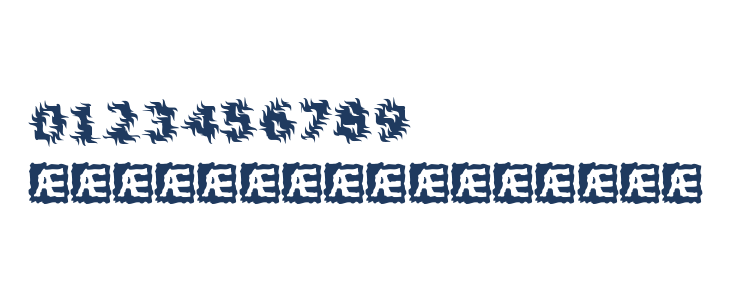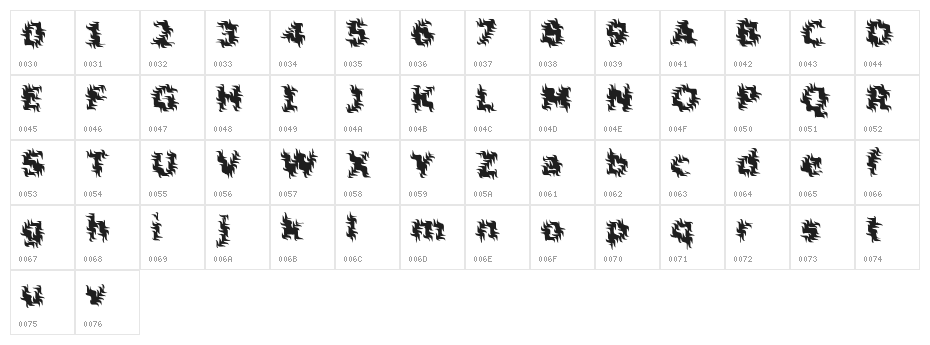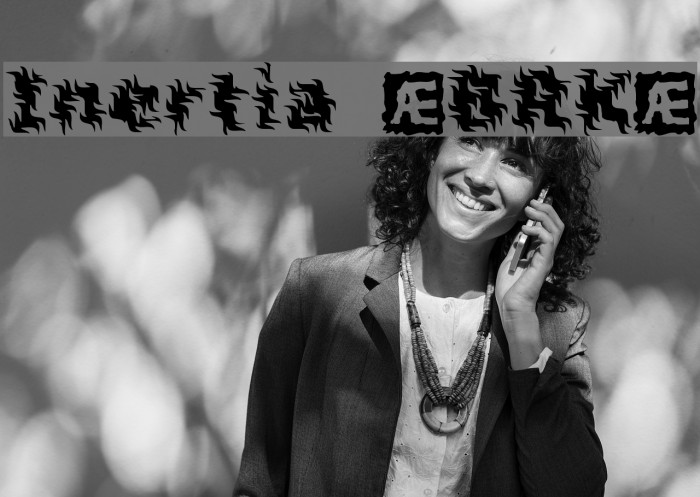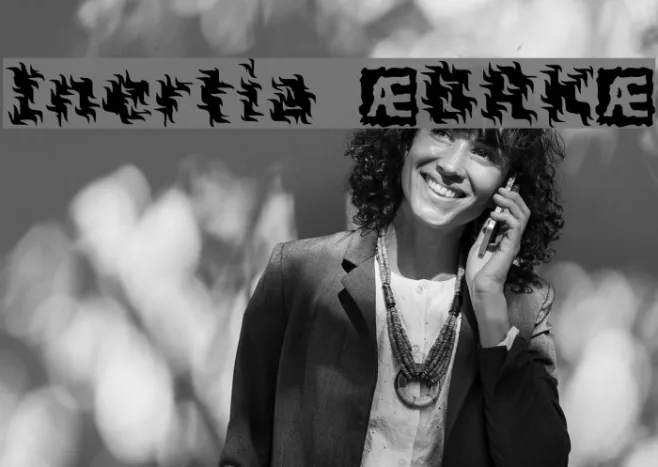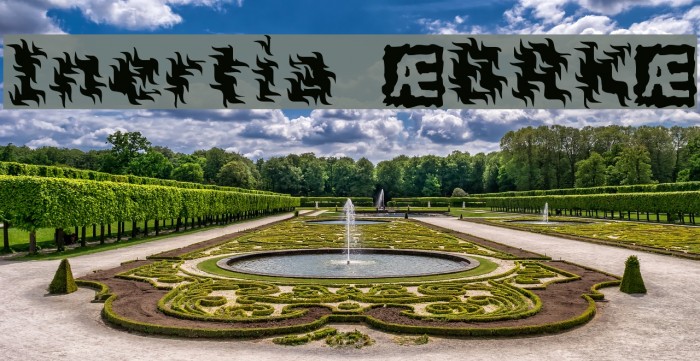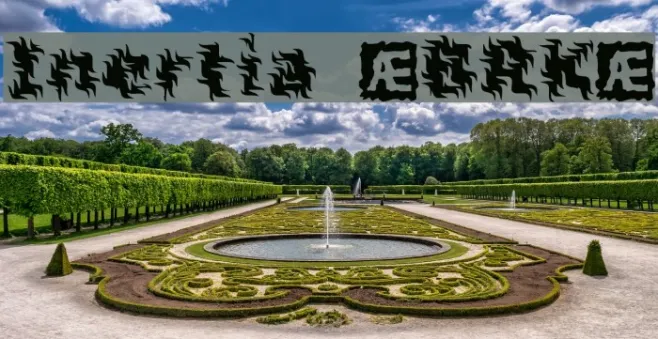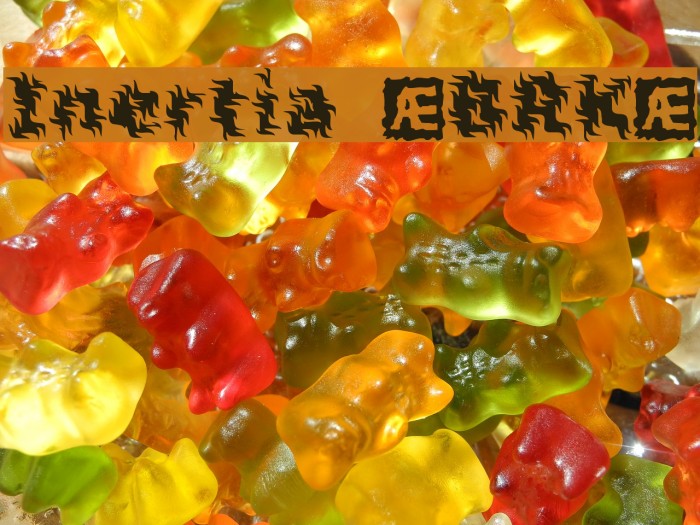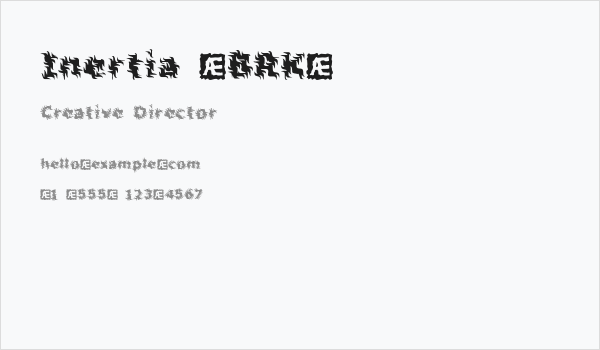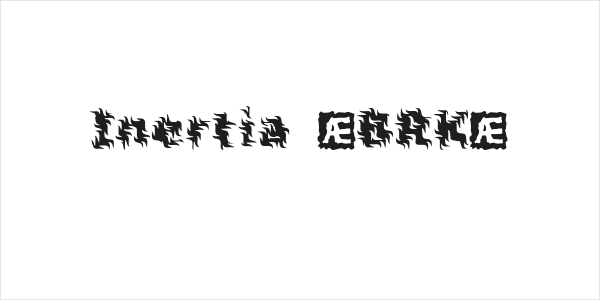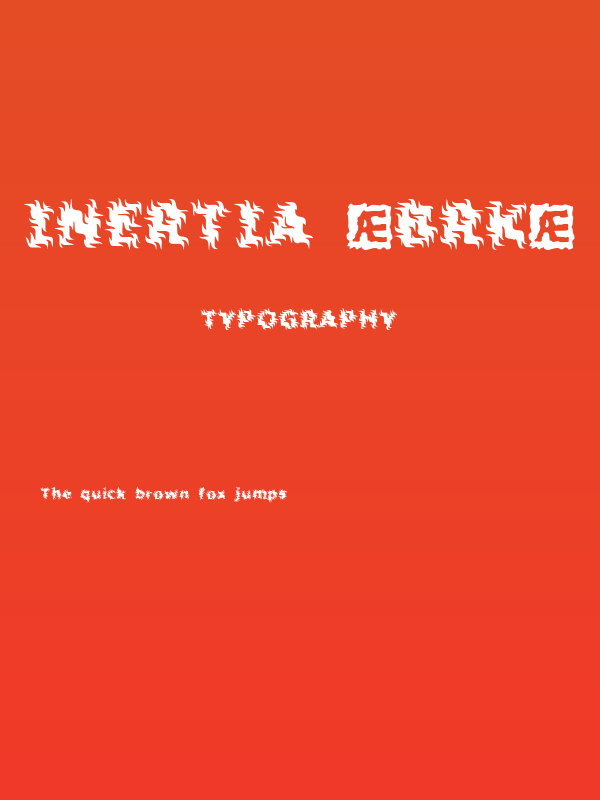
Inertia [BRK] Font
Inertia [BRK] Description
This font features a bold and dynamic design with sharp, jagged edges that create a sense of movement and energy. The characters are heavily stylized, with a unique, almost flame-like appearance that adds a dramatic flair. The uppercase and lowercase letters maintain a consistent style, with each character exhibiting a distinct, aggressive form. The numbers and special characters follow the same design principles, ensuring a cohesive look across all elements. This font's striking appearance makes it ideal for projects that require a strong visual impact.